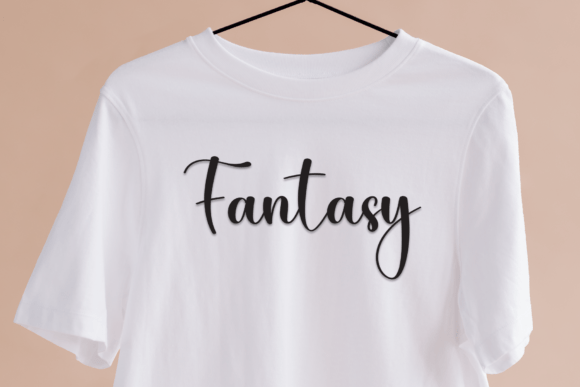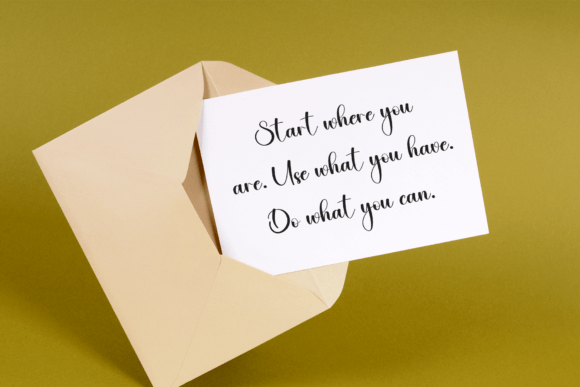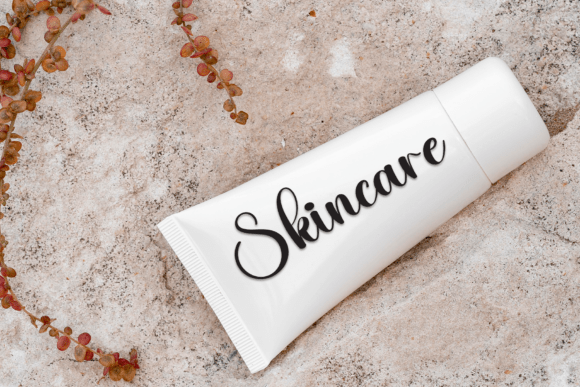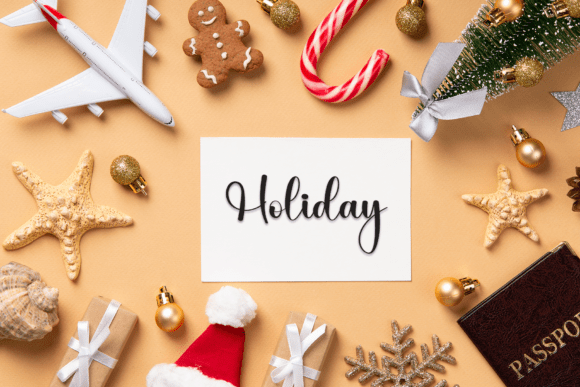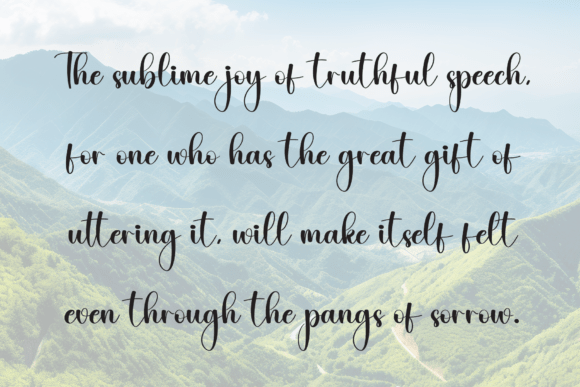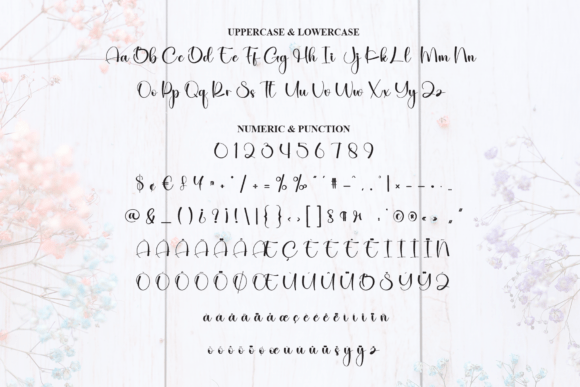
Discover the Elegance of Angels Font: Elevate Your Designs with Sophistication
In the world of typography, few fonts manage to strike a balance between elegance and modernity as effortlessly as Angels Font. This stylish script font is a masterpiece of contemporary design, bringing together the fluidity of hand-drawn calligraphy with the precision of digital craftsmanship. If you’re a designer, crafter, or simply someone who appreciates the beauty of well-crafted typography, Angels Font is sure to captivate you with its refined charm and versatility.
The Essence of Angels Font
Angels Font is more than just a collection of letters; it’s an expression of style and sophistication. Its design is characterized by graceful strokes, fluid curves, and meticulously crafted letterforms that dance across the page with a natural elegance. This font embodies the essence of modern calligraphy, making it an ideal choice for projects that demand a touch of luxury and refinement.
Key Features of Angels Font
- Elegant Strokes and Curves: The font features smooth, flowing strokes that give it a dynamic and lively feel, while the carefully designed curves add depth and dimension to each letterform.
- Modern Twist on Classic Calligraphy: Angels Font brings a contemporary edge to traditional calligraphy, making it perfect for designers looking to create modern, yet timeless, designs.
- Versatility: Whether you’re working on a logo, invitation, packaging, or social media graphics, Angels Font adapts seamlessly to various design needs, ensuring your project stands out with a sophisticated look.
- Polished Details: The attention to detail in Angels Font is evident in its polished finish, which adds a layer of professionalism and quality to any design.
Applications of Angels Font
The versatility of Angels Font makes it suitable for a wide range of applications. Here are some of the most popular uses:
- Logo Design: Create memorable and elegant logos that set your brand apart with the distinctive charm of Angels Font.
- Invitations and Stationery: Add a touch of sophistication to your invitations, greeting cards, and stationery with this beautiful script font.
- Packaging: Elevate your product packaging with a refined and luxurious look that captures the essence of your brand.
- Social Media Graphics: Stand out on social media platforms with eye-catching graphics and posts designed with Angels Font, perfect for quotes, announcements, and more.
Why Choose Angels Font?
In a sea of fonts, Angels Font stands out for its unique blend of elegance, modernity, and versatility. Here are a few reasons why it should be your go-to choice for your next design project:
- Unique Style: Its distinctive style ensures your designs are instantly recognizable and set apart from the generic and overused fonts.
- Easy to Read: Despite its elegant and cursive nature, Angels Font maintains a high level of readability, making it suitable for both headings and body text.
- Time-Saving: With Angels Font, you can achieve professional-looking results quickly, saving you time and effort in your design process.
Angels Font is a stylish and sophisticated script font that brings a touch of elegance and modernity to any design project. Its graceful strokes, fluid curves, and carefully crafted letterforms make it an ideal choice for designers and crafters looking to create stunning and refined designs. Whether you’re working on a logo, invitation, packaging, or social media graphics, Angels Font is sure to deliver both versatility and visual appeal, elevating your designs to new heights of sophistication and charm.